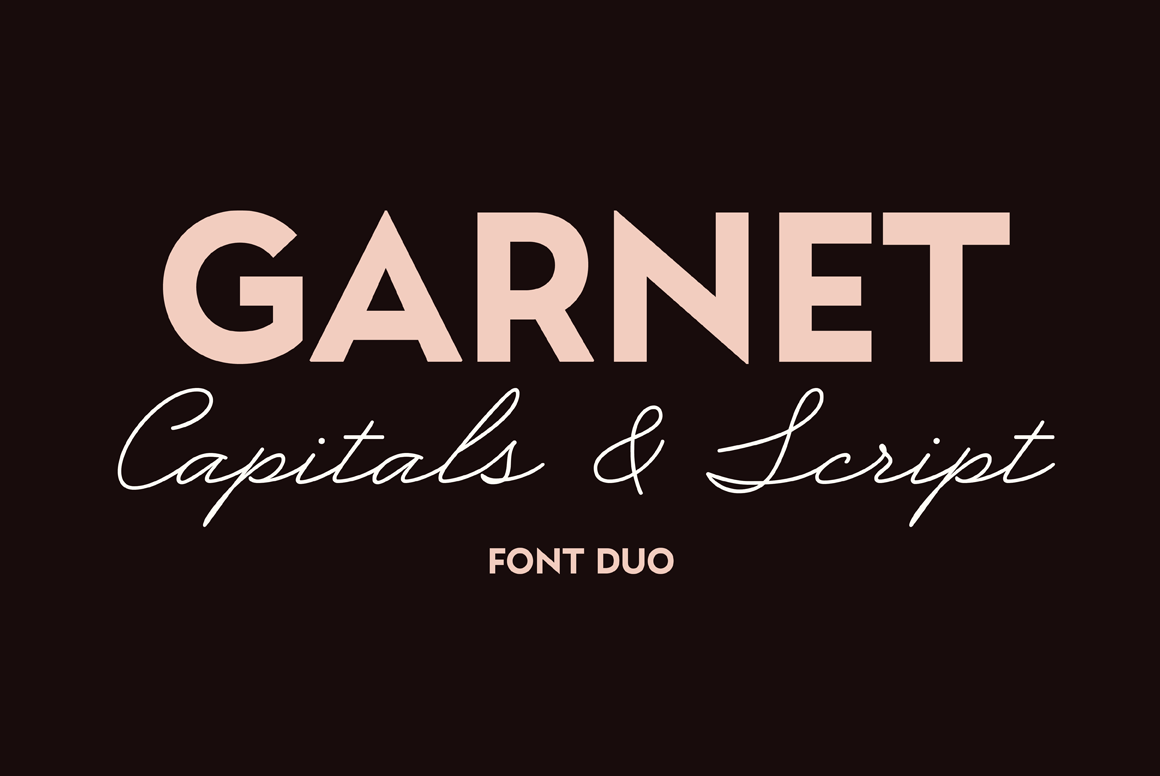
Garnet Font Duo
Garnet Font Duo is a combination of Geometric Capitals (Bold) and Business Script. It looks stylish, modern and fresh so you can use it for many tasks: editorial, magazines, cards, prints etc.